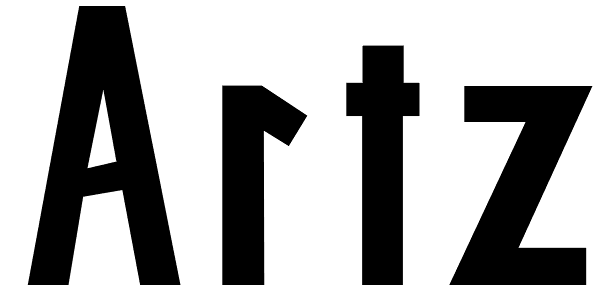
Artz
Artz is a highly stylized sans serif with a Deco look in Narrow, Plain and Wide. It has oldstyle numbers and many special characters.
Artz Wide
Artz Narrow
Artz